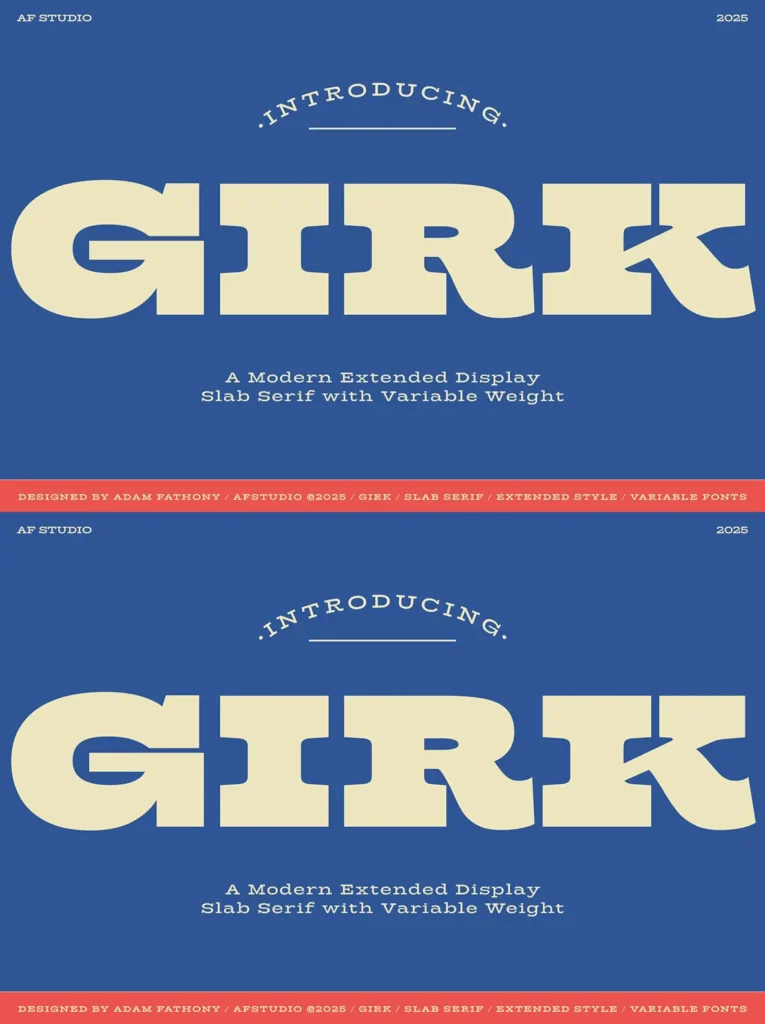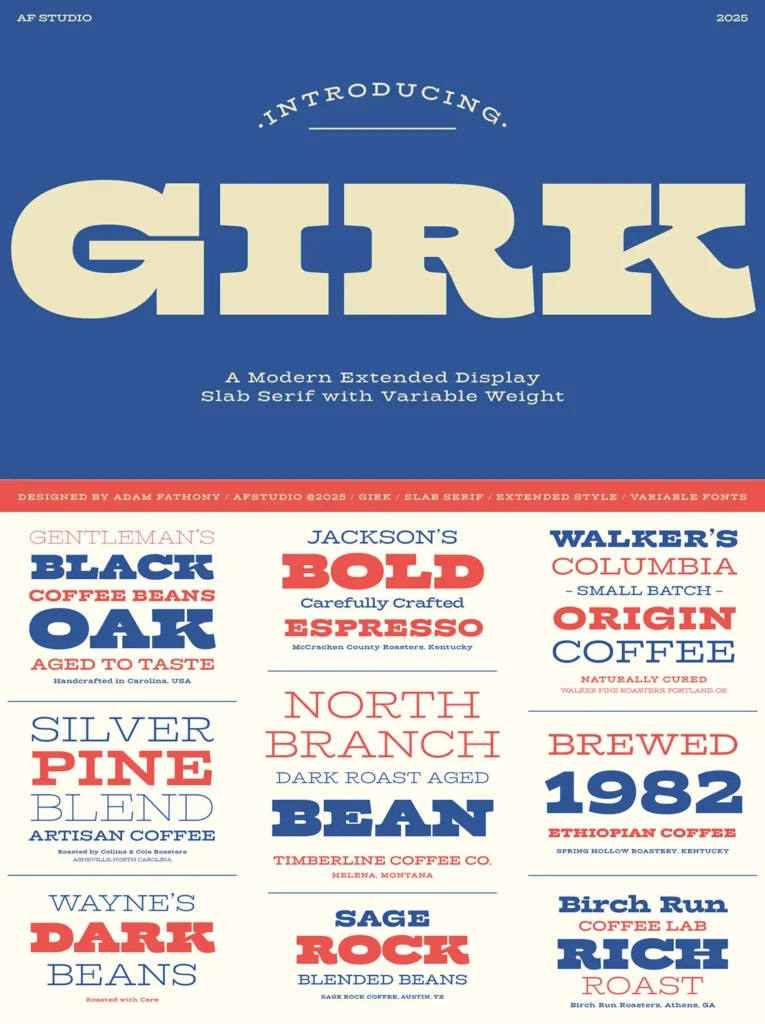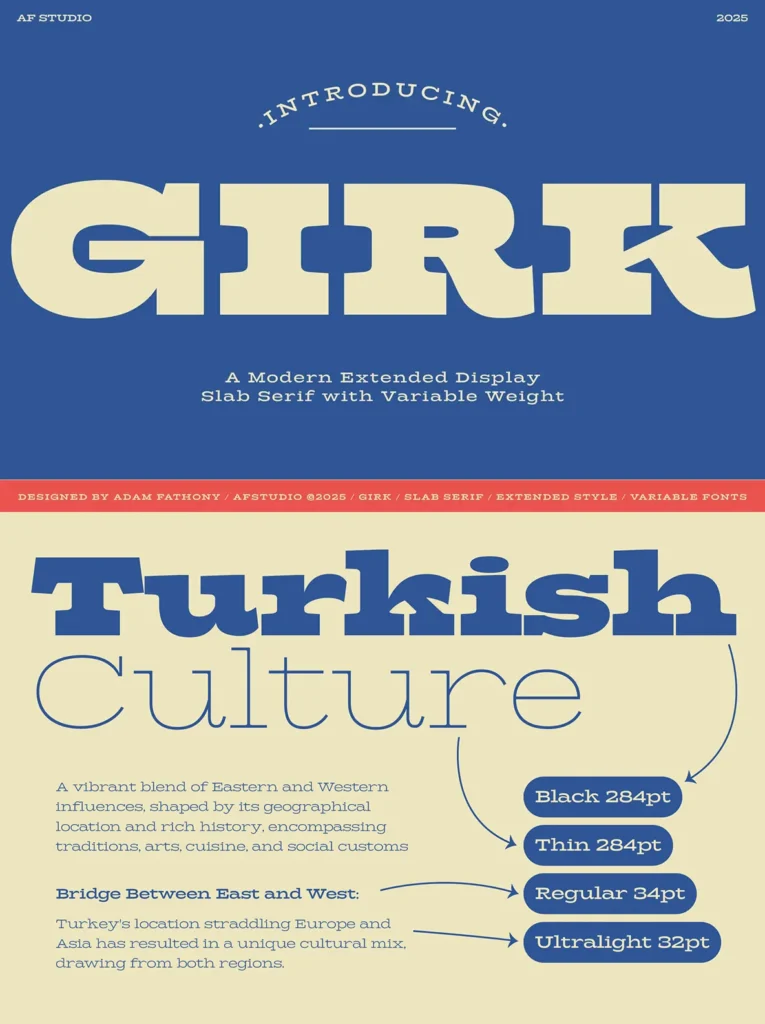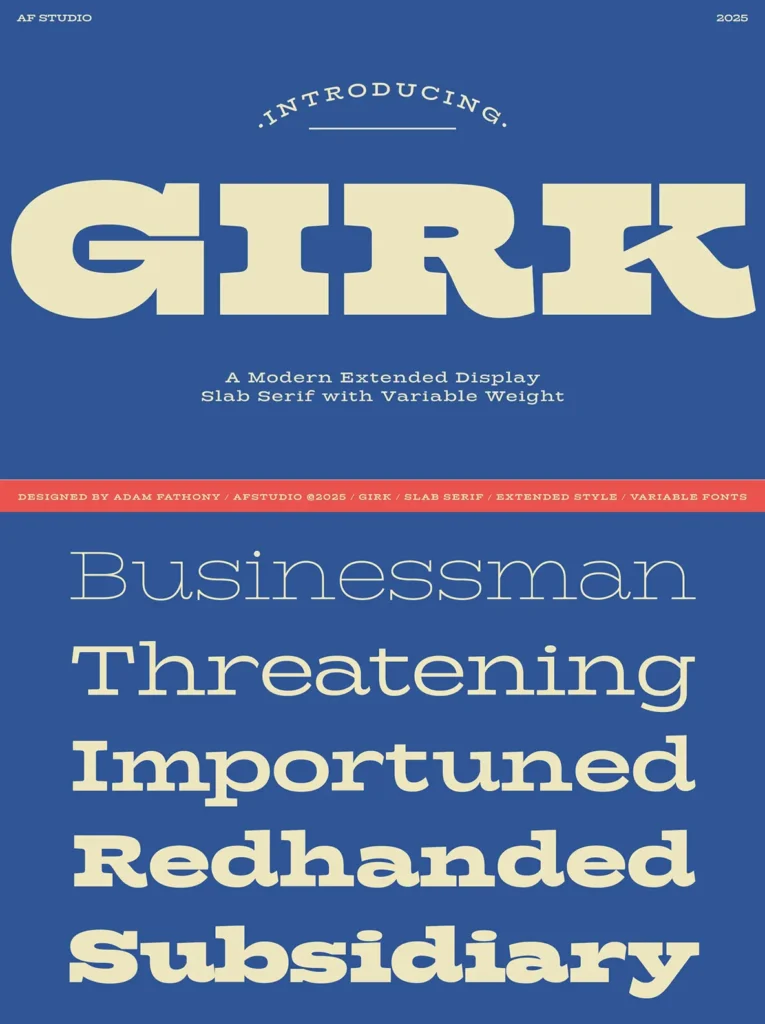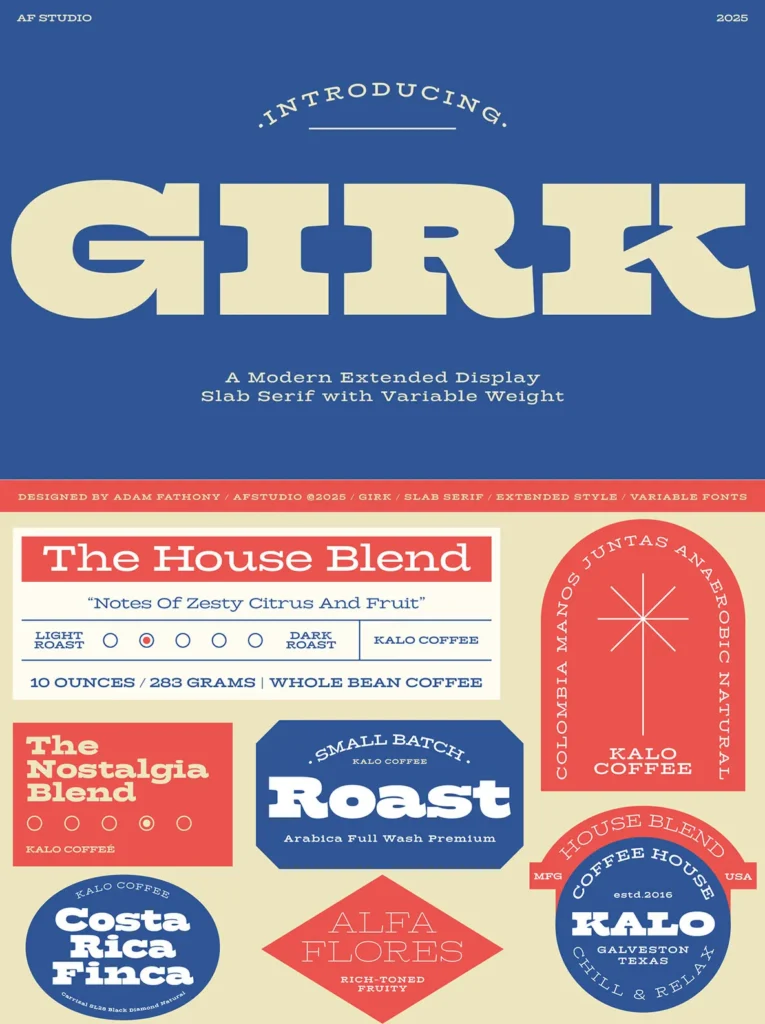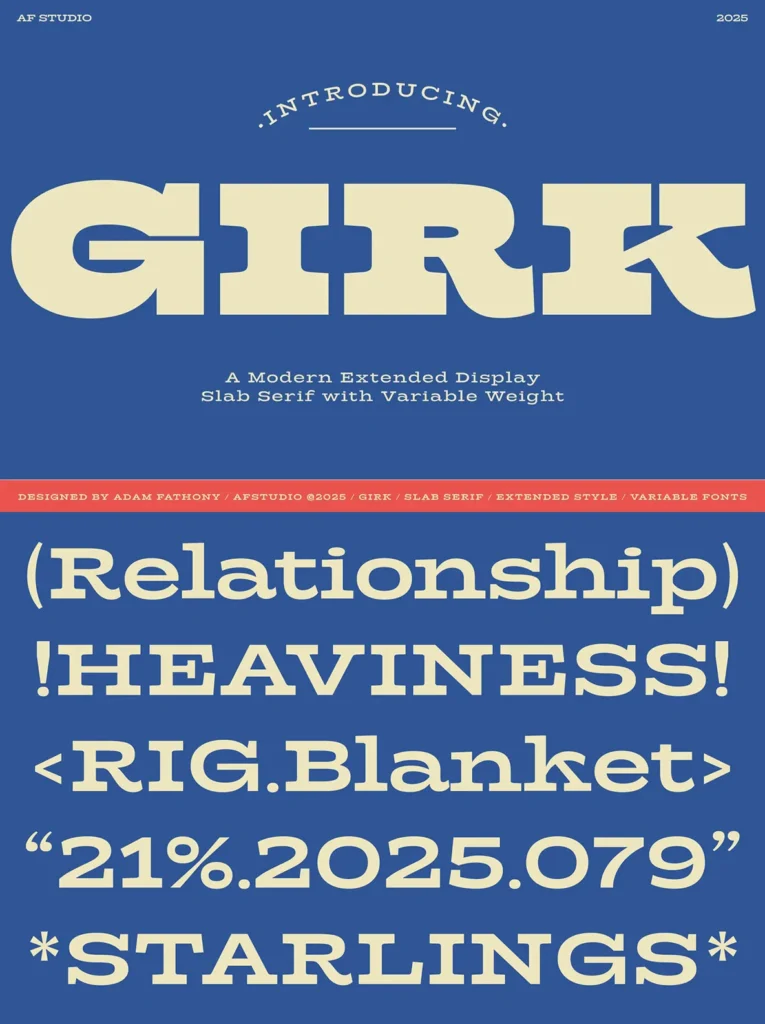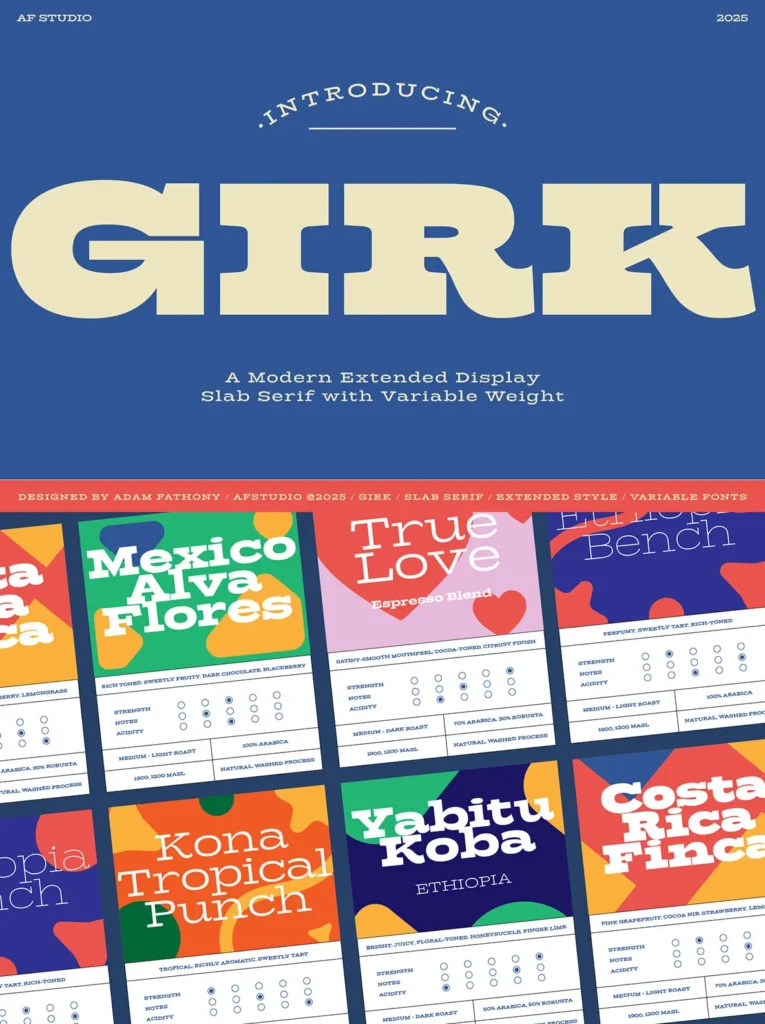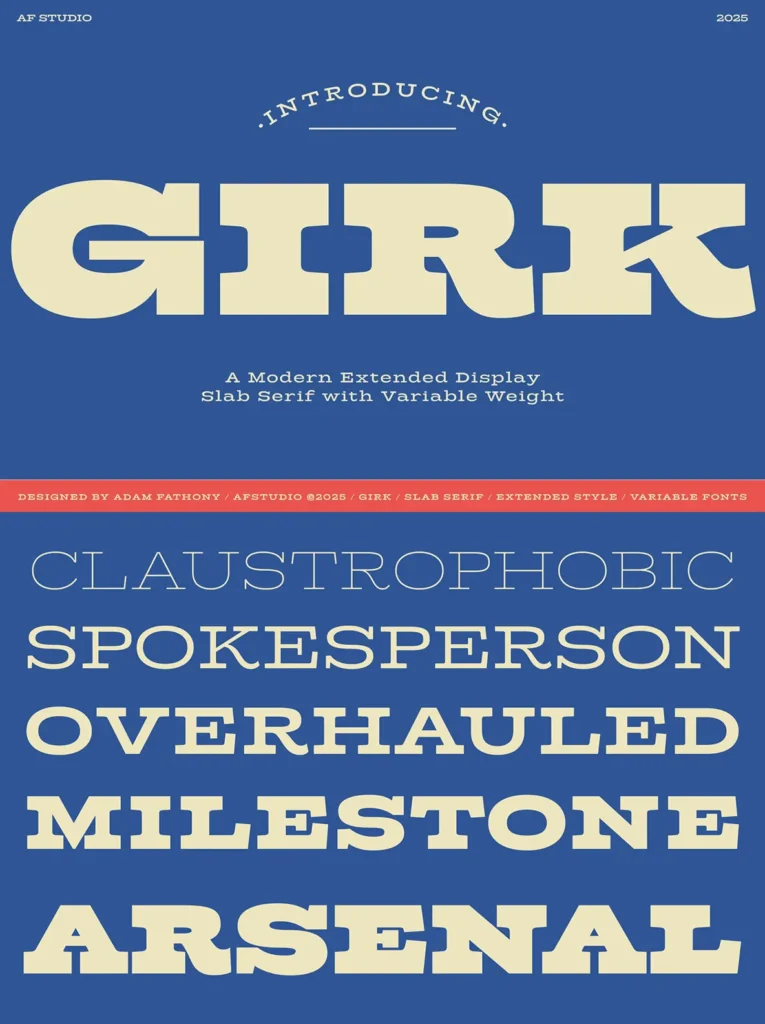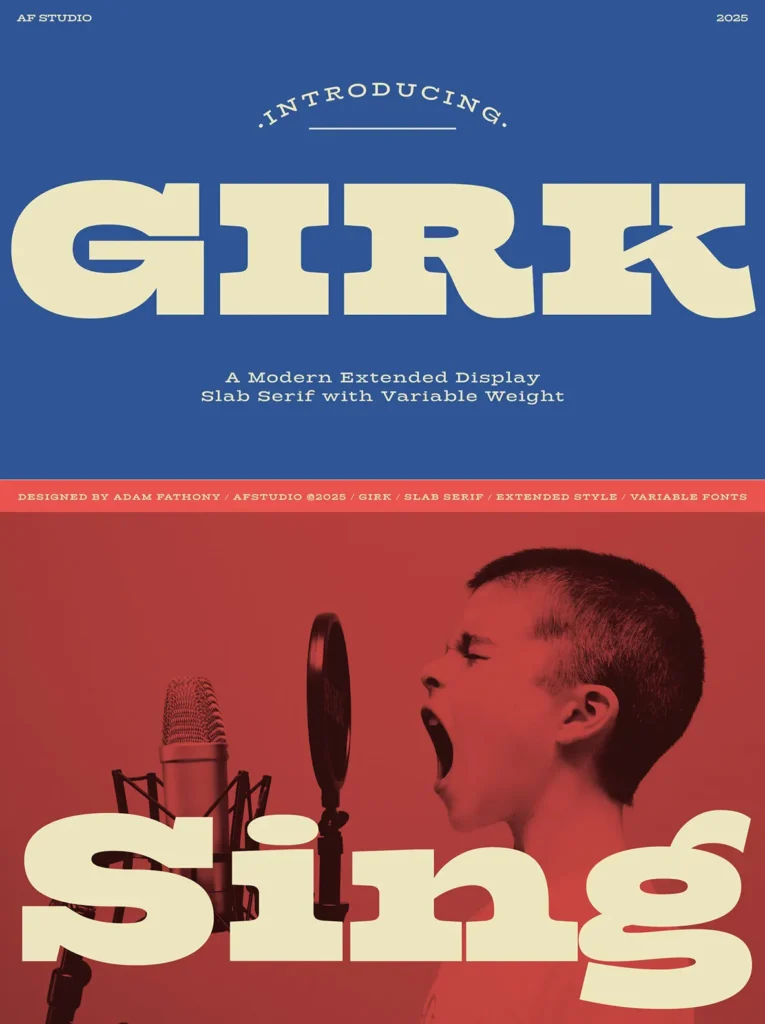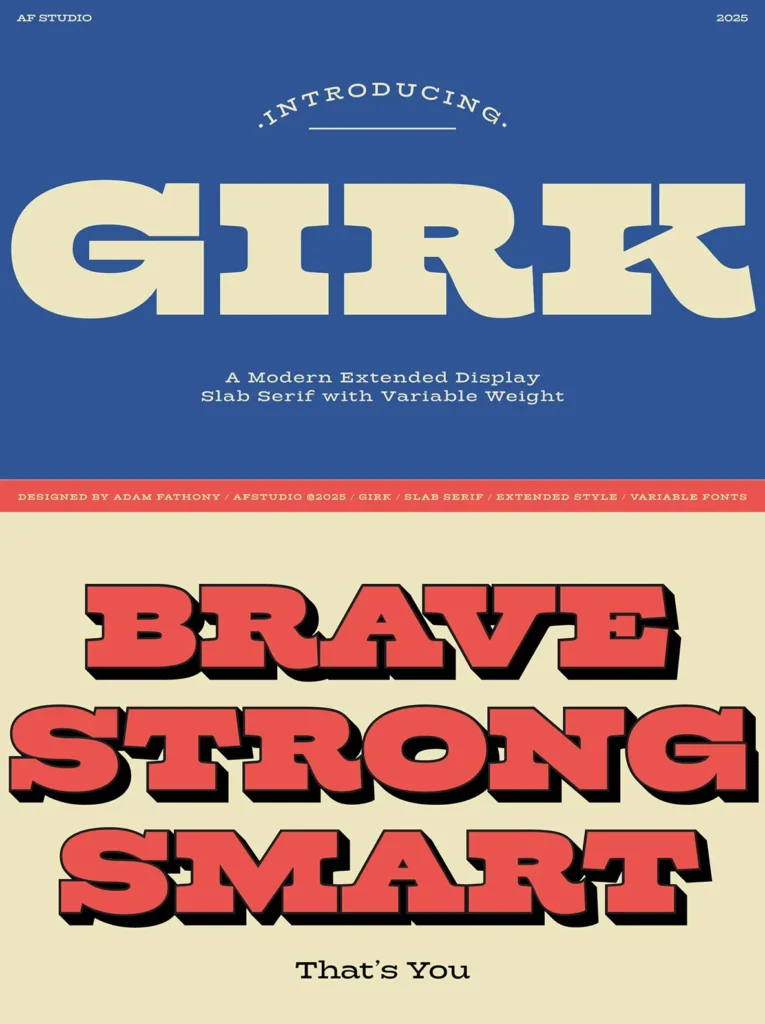
Girk Font
Girk: Confident Slab for Loud Headlines
Bold and confident, this versatile slab serif display typeface by Adam Fathony is built for standout headlines and vibrant brand identities. Its extended width and modern tone balance retro charm with contemporary precision, making it a strong choice for expressive packaging and distinctive editorial design.
Use it where clarity matters and personality needs to read fast—coffee packaging, vintage-inspired branding, and experimental web typography. With flexible weights and display-forward proportions, Girk stays legible at scale while keeping a distinctive voice across print and digital.
Key Features
Variable Weight Axis
— Seamlessly transition from Thin to UltraBold and everything in between.
Extended Display Proportions
— Wide letterforms offer a bold presence and visual authority.
Multilingual Support
— Full range of accented characters for global brands and editorial design.
Alternate “g”
— Includes stylistic options to tailor personality and readability.
All-Caps and Small-Caps Ready
— Effortless in uppercase compositions with optional lowercase flair.
Font Family Versatility
— Includes Thin, Light, Regular, Bold, Display, and everything in between for diverse applications.